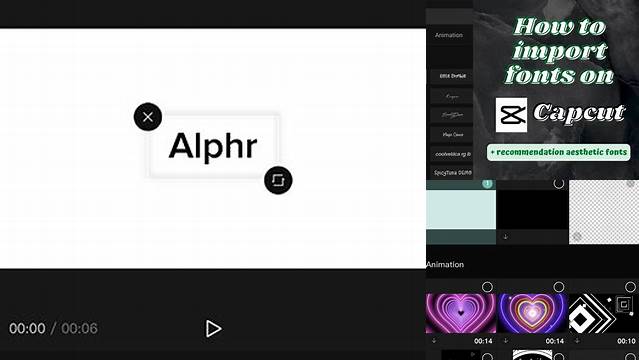
Best CapCut Fonts For Captions: Make Your Videos Pop
Hey there, video creators! π Ever wondered how to make your CapCut videos really pop? The secret sauce often lies in your captions. Choosing the right font can be a game-changer, transforming your video from looking amateur to absolutely professional. In this guide, we're diving deep into the world of popular CapCut caption fonts, exploring what makes them so effective and how you can use them to enhance your video content. So, buckle up and let's get font-astic!
Why Fonts Matter for CapCut Captions
Okay, guys, before we jump into the specific fonts, let's quickly chat about why fonts are so important in the first place. Think of your captions as the voice of your video when the sound is off (or when viewers are in noisy environments). They convey crucial information, add context, and help keep your audience engaged. But a poorly chosen font? That can be a recipe for disaster! A font that's hard to read, clashes with your video's style, or simply looks outdated can turn viewers off faster than you can say "subscribe." Imagine spending hours crafting the perfect video, only for your message to get lost in a sea of illegible text. Ouch!
Fonts play a huge role in setting the overall tone and vibe of your video. A playful, bubbly font might be perfect for a fun vlog or a lighthearted tutorial, while a sleek, modern font could be ideal for a tech review or a professional presentation. The right font not only makes your captions readable but also reinforces your brand identity and the message you're trying to convey. Itβs about creating a cohesive visual experience that resonates with your audience. Think of it like this: your font is the outfit your captions are wearing β you want them to look their best!
Furthermore, consider the accessibility aspect. Choosing a clear and legible font ensures that your content is accessible to a wider audience, including those with visual impairments. This isn't just about being inclusive (though that's super important!), it's also about ensuring that everyone can understand and enjoy your content. A simple, clean font is often the best choice for accessibility, avoiding overly decorative or stylized options that can be difficult to decipher. So, selecting the right font is about more than just aesthetics β itβs about functionality, branding, and inclusivity. Now that we've established why fonts matter, letβs explore some of the most popular CapCut caption fonts that can help you take your videos to the next level.
Top 5 Popular CapCut Caption Fonts
Alright, let's get to the good stuff! Here are five of the most popular CapCut caption fonts that are sure to make your videos stand out from the crowd. We'll break down what makes each font unique, the types of videos they're best suited for, and some tips on how to use them effectively. Let's dive in!
1. Montserrat: The Modern Classic
Montserrat is a widely loved sans-serif font that's known for its clean lines, geometric shapes, and overall modern feel. Think of it as the little black dress of fonts β it's versatile, timeless, and always in style. What makes Montserrat so special is its legibility. The letters are well-spaced and easy to read, even at smaller sizes, making it a great choice for captions that need to be clear and concise. It exudes a sense of professionalism and sophistication, making it perfect for a variety of video styles.
So, what types of videos does Montserrat shine in? This font is a fantastic option for tutorials, educational content, business presentations, and anything that requires a clean, authoritative look. Imagine using Montserrat for the captions in a tech review video, or for the subtitles in an online course. It adds a touch of polish and credibility without being overly distracting. But don't think Montserrat is just for serious stuff! It can also work well in vlogs, lifestyle videos, and even gaming content, especially if you're aiming for a minimalist or modern aesthetic. Its versatility is one of its greatest strengths.
When using Montserrat, consider pairing it with a contrasting font for your video titles or thumbnails. This can help create visual interest and prevent your text from feeling too monotonous. For example, you could pair Montserrat with a bolder, more expressive font for your titles, like Bebas Neue or Impact. Experiment with different font sizes and weights to find the perfect balance for your captions. A slightly bolder weight can help your captions stand out against a busy background, while a lighter weight can create a more subtle and elegant feel. Remember, consistency is key. Stick to a consistent font pairing throughout your video and across your entire channel to maintain a cohesive brand identity. Montserrat is a solid choice for adding that professional touch!
2. Bebas Neue: The Tall and Striking Choice
If you're looking for a font that makes a statement, look no further than Bebas Neue. This sans-serif font is characterized by its tall, narrow letters and bold, impactful presence. Think of it as the skyscraper of fonts β it's attention-grabbing, modern, and commands the viewer's gaze. Bebas Neue is a fantastic choice for captions that need to be seen, especially in fast-paced videos or when you want to emphasize key points.
Bebas Neue is particularly well-suited for dynamic video content, such as action sports videos, hype reels, and promotional videos. Its bold nature lends itself well to visuals that need to convey energy and excitement. Imagine using Bebas Neue for the captions in a skateboarding edit, or for the text overlays in a trailer for a new product. It adds a sense of urgency and visual impact. However, it's not limited to just high-energy content. Bebas Neue can also be effective in vlogs, tutorials, and even gaming videos, particularly when used sparingly to highlight important information or create visual emphasis. The key is to use it strategically.
When using Bebas Neue, it's important to consider readability. Due to its tall and narrow letterforms, it can become challenging to read if used in large blocks of text or at very small sizes. Use it sparingly, focusing on key words and short phrases. Consider increasing the letter spacing slightly to improve readability. Pair Bebas Neue with a more legible font for your body text or longer captions, such as Montserrat or Open Sans. This creates a visual hierarchy and ensures that your message is clear and easy to understand. Experiment with different font colors and background shapes to make your Bebas Neue captions pop. A solid background or a contrasting color can help your text stand out against a busy video background. With its bold personality, this font is sure to add some flair to your project.
Conclusion: Font-tastic Videos Await!
So there you have it, guys! A deep dive into the world of popular CapCut caption fonts and how to choose the perfect ones for your videos. Remember, your font choices can make a huge difference in how your content is perceived, so take the time to experiment and find what works best for you. Whether you opt for the modern classic that is Montserrat, the bold impact of Bebas Neue, the friendly accessibility of Open Sans, the elegant touch of Raleway, or the playful charm of Poppins, the key is to choose fonts that align with your brand, your video's tone, and your overall message. And most importantly, always prioritize readability. With the right fonts in your arsenal, you'll be well on your way to creating font-tastic videos that captivate your audience and leave a lasting impression. Happy creating! π